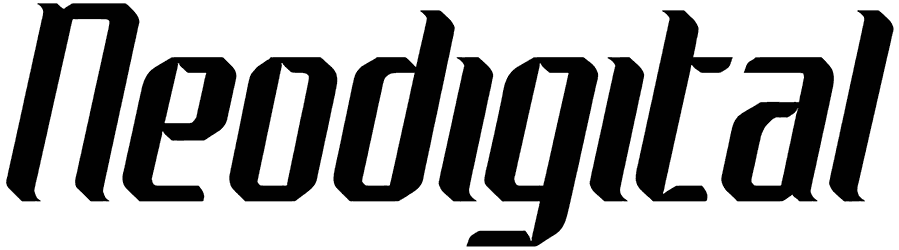
Neodigital Font
Designed byJonathan Swinn
Let’s use this sci-fi font to create a digital and ultramodern visual for your innovative design and capture a lot of fans. The characters are tall, and you can set them to make a unique mood. The Neodigital font is going to serve you as a perfect letterform for many designs, like a technology company website design.